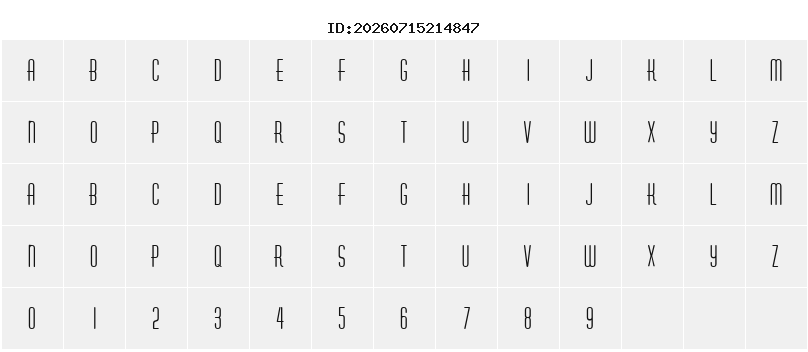
• Font Name: Astute
• Full Font Name: Astute Regular
Astute.ttf is a modern, elegant sans-serif font designed for ultimate readability and visual harmony. Perfect for branding, headlines, web design, and print materials.